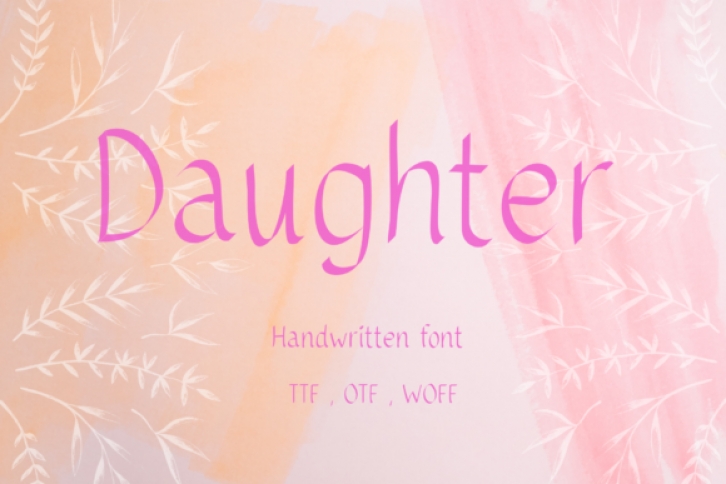
Daughter is a unique handwritten font. It features a casual and relaxed vibe that makes it perfect for logos, branding, greeting cards, posters, magazines, social media, planner prints and websites.